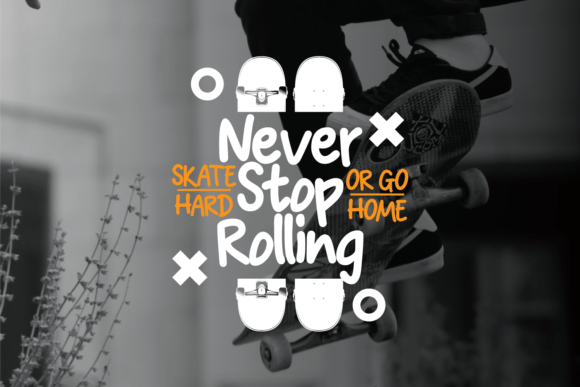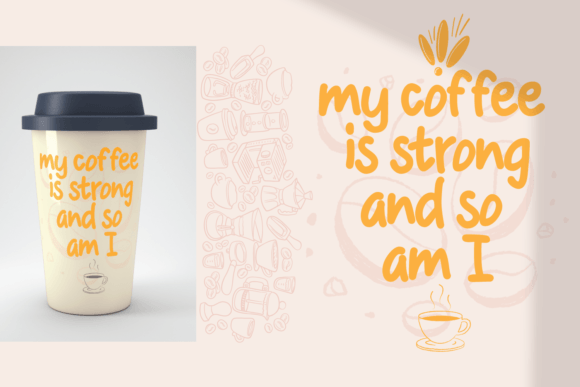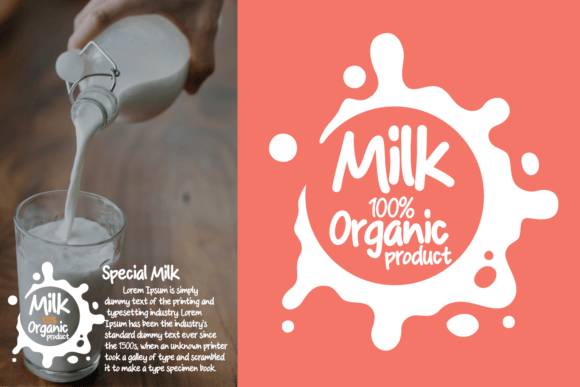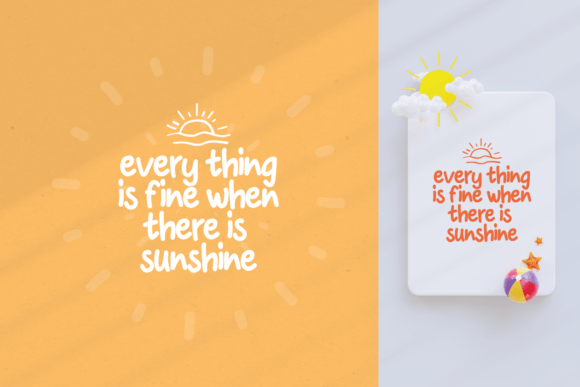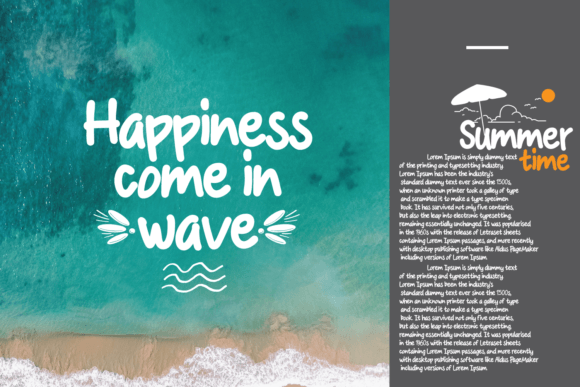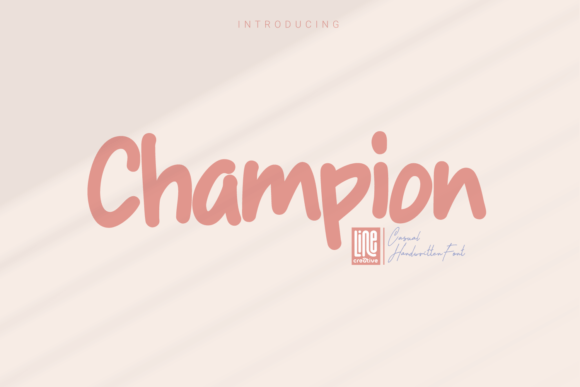
Introducing Champion Font: The Ultimate Sans Serif Handwriting Font for Designers and Crafters
Are you tired of using the same old fonts in your designs? Do you want to add a personal touch to your logos, quotes, art, titles, and handmade crafts? Look no further than Champion Font, a stunning sans serif handwriting font that’s sure to elevate your designs to the next level.
What is Champion Font?
Champion Font is a unique and versatile sans serif handwriting font that’s perfect for designers and crafters who want to add a touch of personality to their work. Its clean and modern lines make it ideal for a wide range of applications, from logos and branding to art, titles, and handmade crafts.
Key Features of Champion Font
• Handwritten style: Champion Font has a beautiful handwritten style that’s both elegant and approachable.
• Sans serif: The font features clean and modern sans serif lines that make it perfect for a wide range of applications.
• Versatile: Champion Font can be used for logos, quotes, art, titles, and handmade crafts, making it a great addition to any designer’s toolkit.
• Easy to read: The font is highly legible, making it perfect for use in both digital and print applications.
Why Use Champion Font?
So why should you choose Champion Font for your next design project? Here are just a few reasons:
• Add a personal touch: Champion Font’s handwritten style adds a personal touch to any design, making it perfect for crafters and designers who want to create unique and eye-catching work.
• Stand out from the crowd: With its clean and modern lines, Champion Font is sure to help your designs stand out from the crowd.
• Perfect for branding: The font’s versatility and legibility make it perfect for use in branding and logo design.
How to Use Champion Font
Using Champion Font is easy! Here are a few tips to get you started:
• Logos and branding: Use Champion Font to create unique and eye-catching logos and branding materials.
• Art and titles: Add a touch of personality to your art and titles with Champion Font’s handwritten style.
• Handmade crafts: Use Champion Font to add a personal touch to your handmade crafts, such as jewelry, textiles, and more.
• Digital applications: Champion Font is perfect for use in digital applications, such as social media graphics, blog posts, and more.
In conclusion, Champion Font is a versatile and stylish sans serif handwriting font that’s perfect for designers and crafters who want to add a personal touch to their work. With its clean and modern lines, handwritten style, and ease of use, Champion Font is sure to become a go-to font in your design toolkit. So why wait? Download Champion Font today and start creating stunning designs that stand out from the crowd!
Whether you’re a professional designer or a crafter looking to add a personal touch to your work, Champion Font is the perfect choice. Its unique and eye-catching style is sure to elevate your designs to the next level, and its ease of use makes it perfect for designers of all skill levels. So don’t miss out on this amazing font – download Champion Font today and start creating!